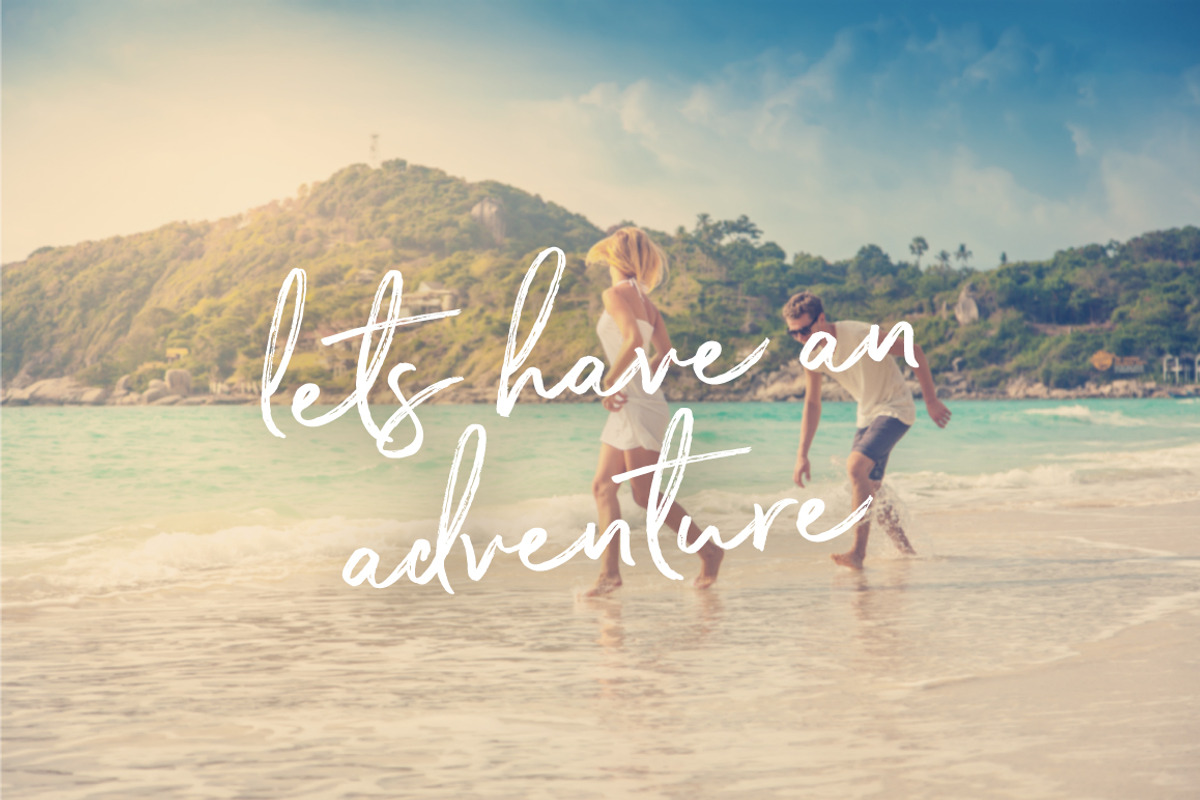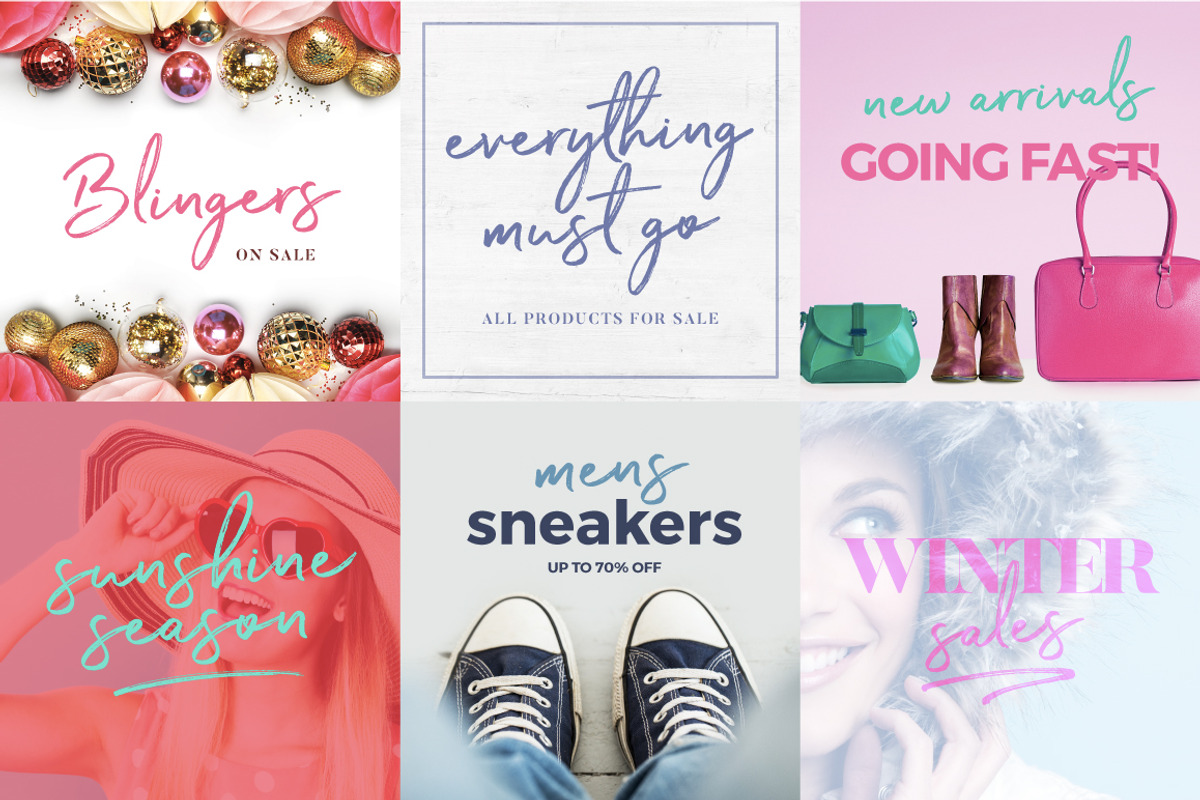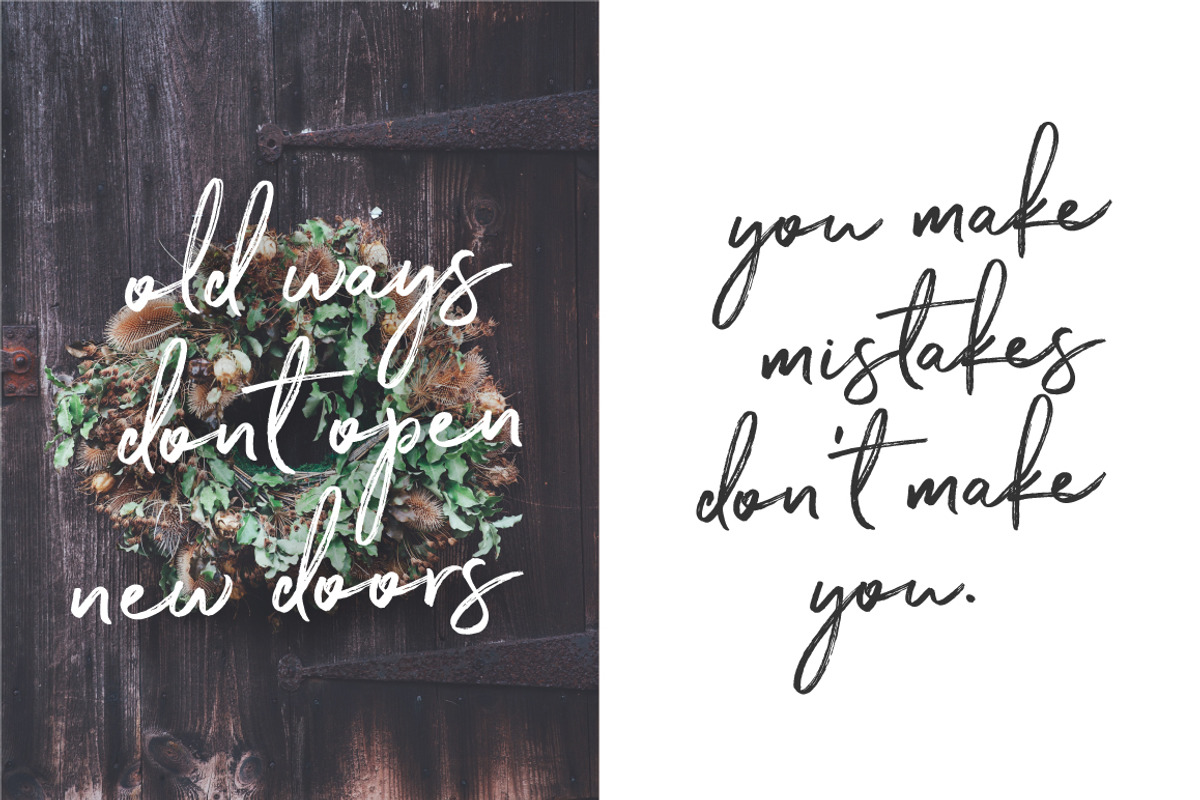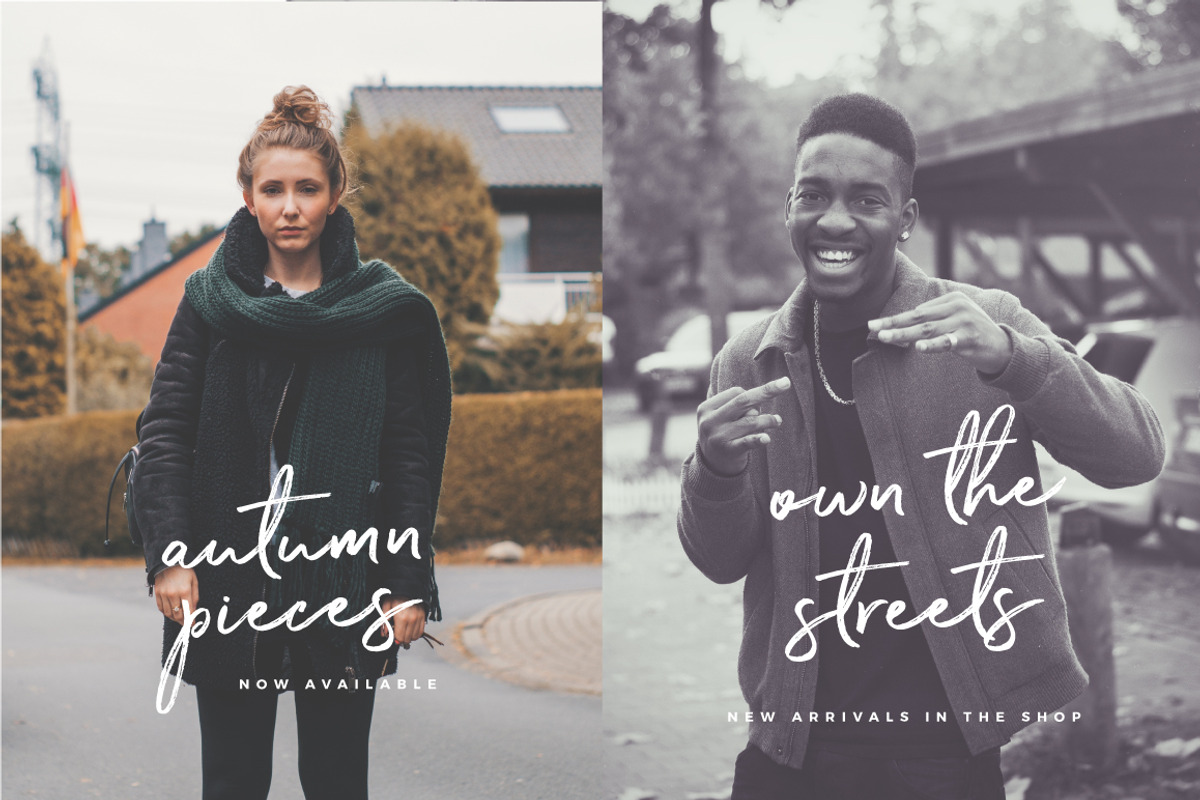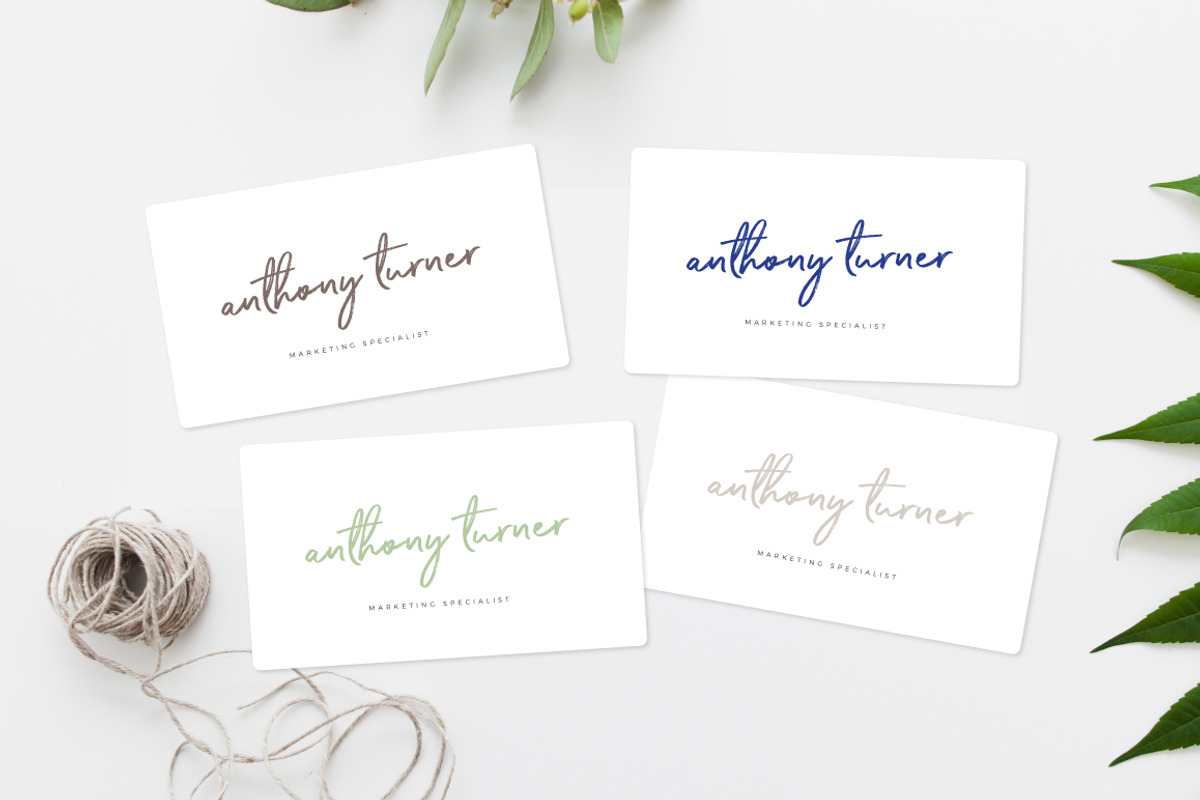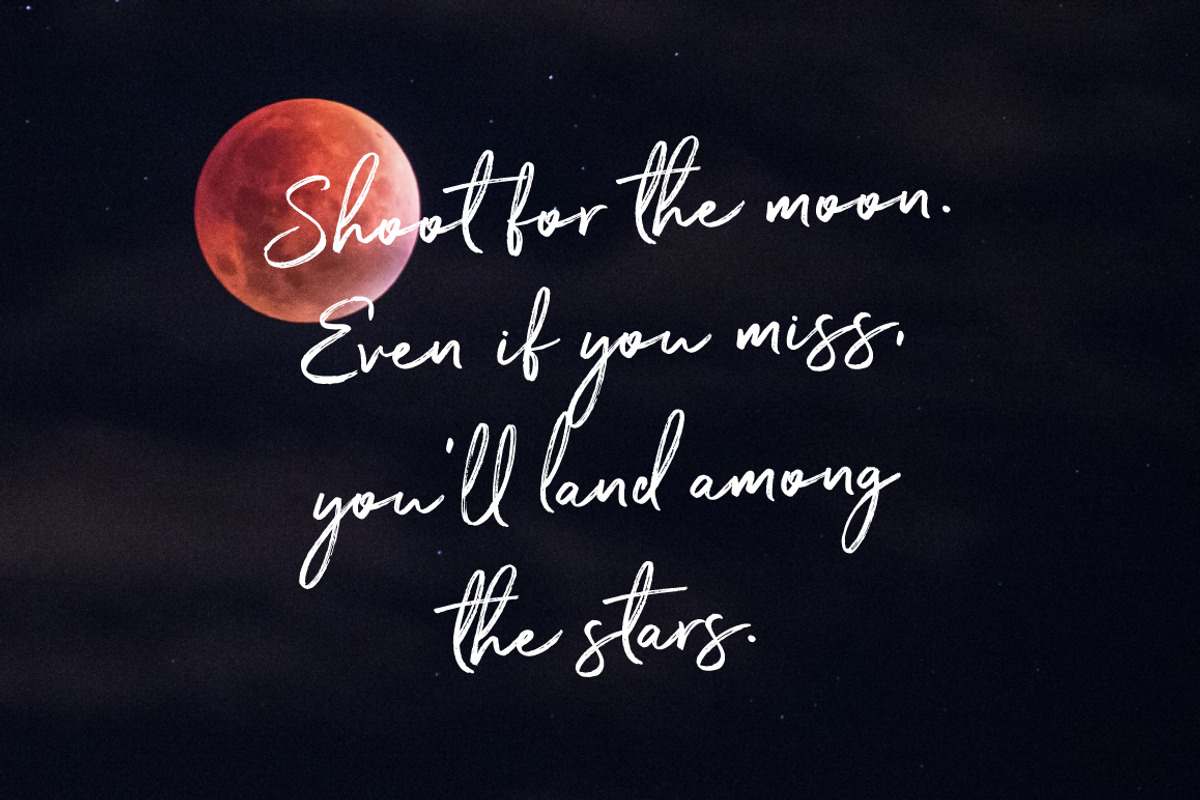
The Saturday Typeface
The Saturday Typeface by Mats-Peter Forss is a font selected for branding, posters, packaging, typography.
- On top of the all-gorgeous main font, you'll get full alternates for the lowercase characters and swashes to underline your finesse designs!
- The Saturday Script and Alt + Clean Version (4 fonts)- Upper and lowercase characters, numerals, punctuations and a wide language support.
- Alternates for lowercase characters.
Why The Saturday Typeface is worth a look
The Saturday Typeface by Mats-Peter Forss fits naturally into Branding, posters, packaging, typography.